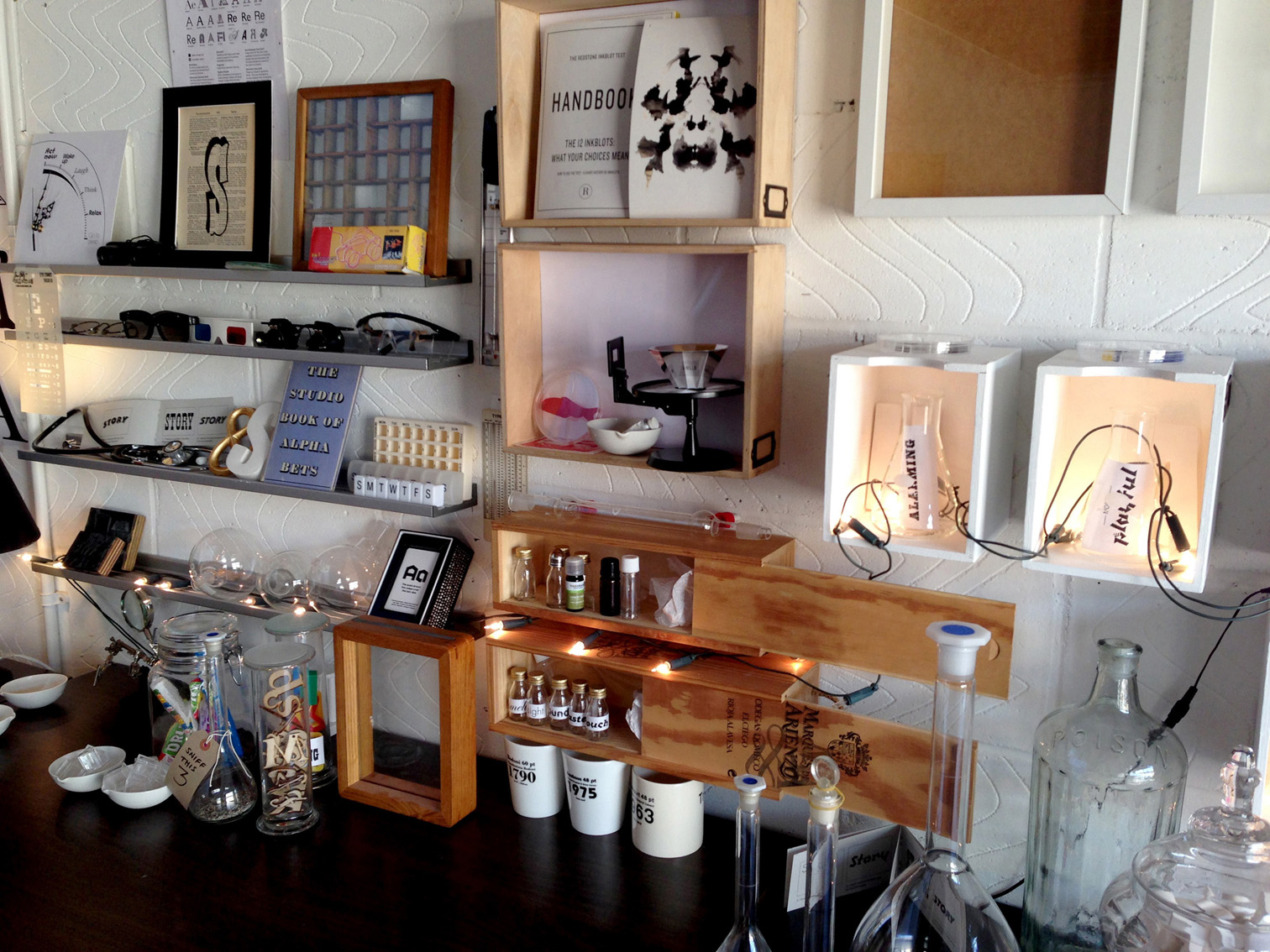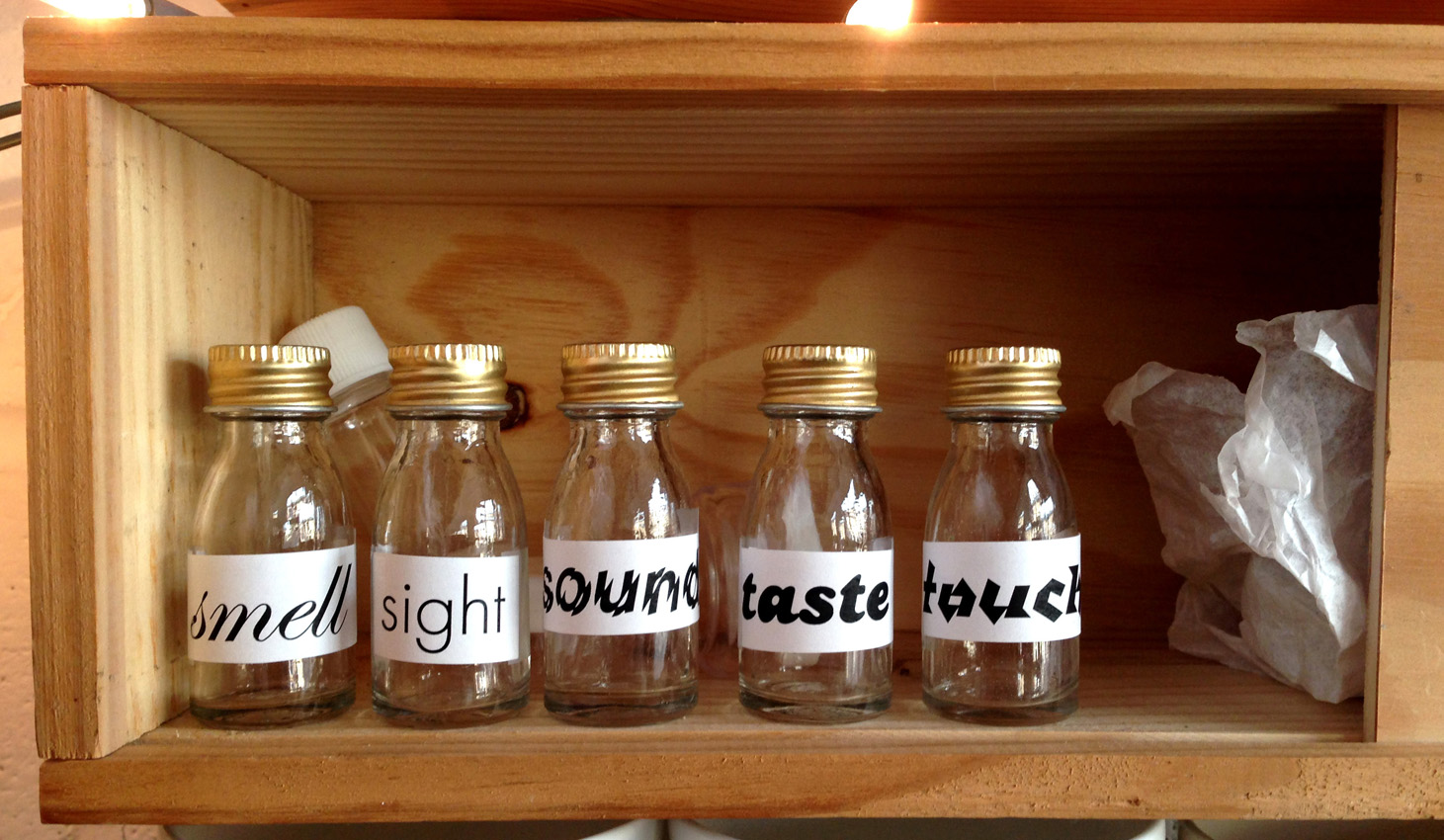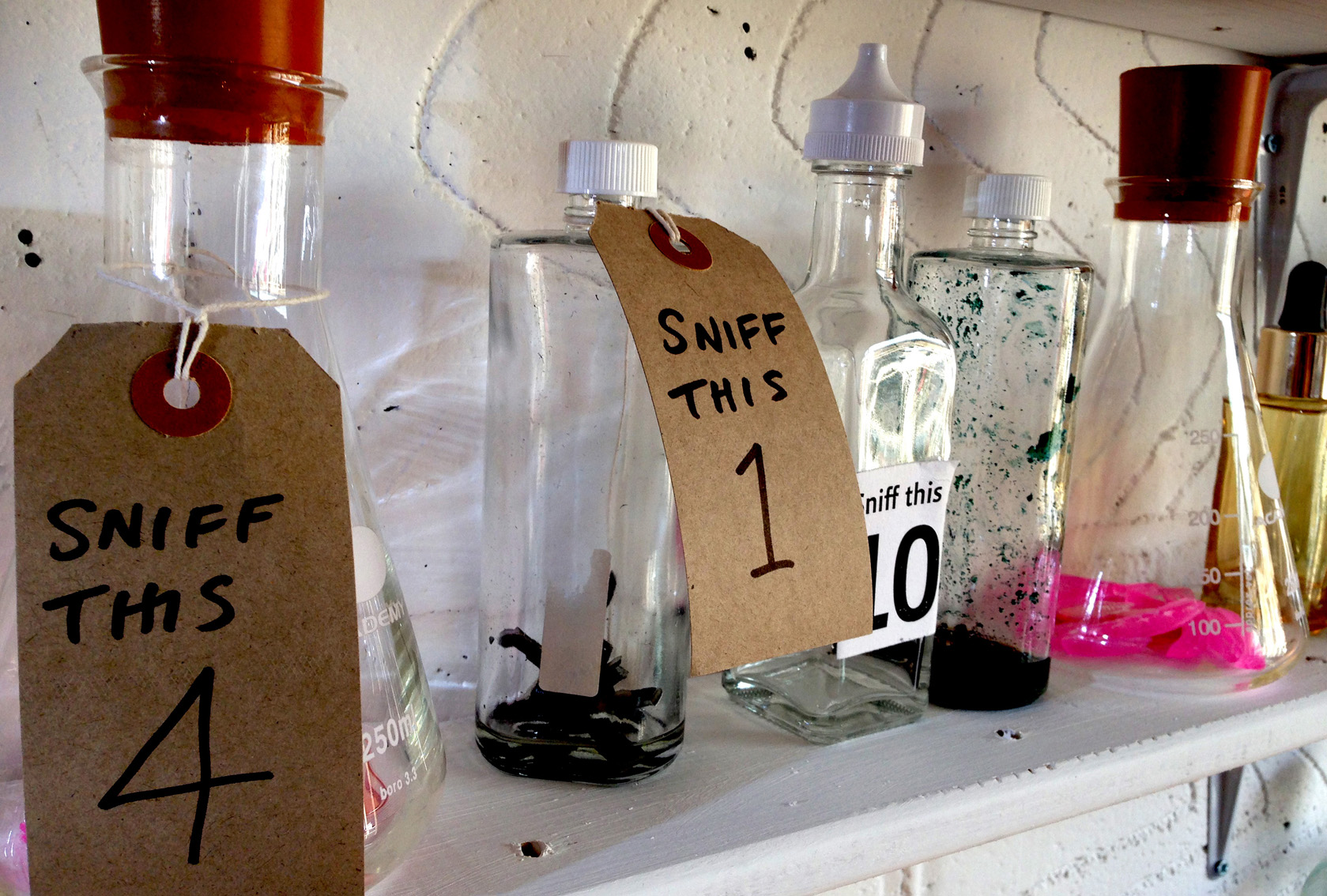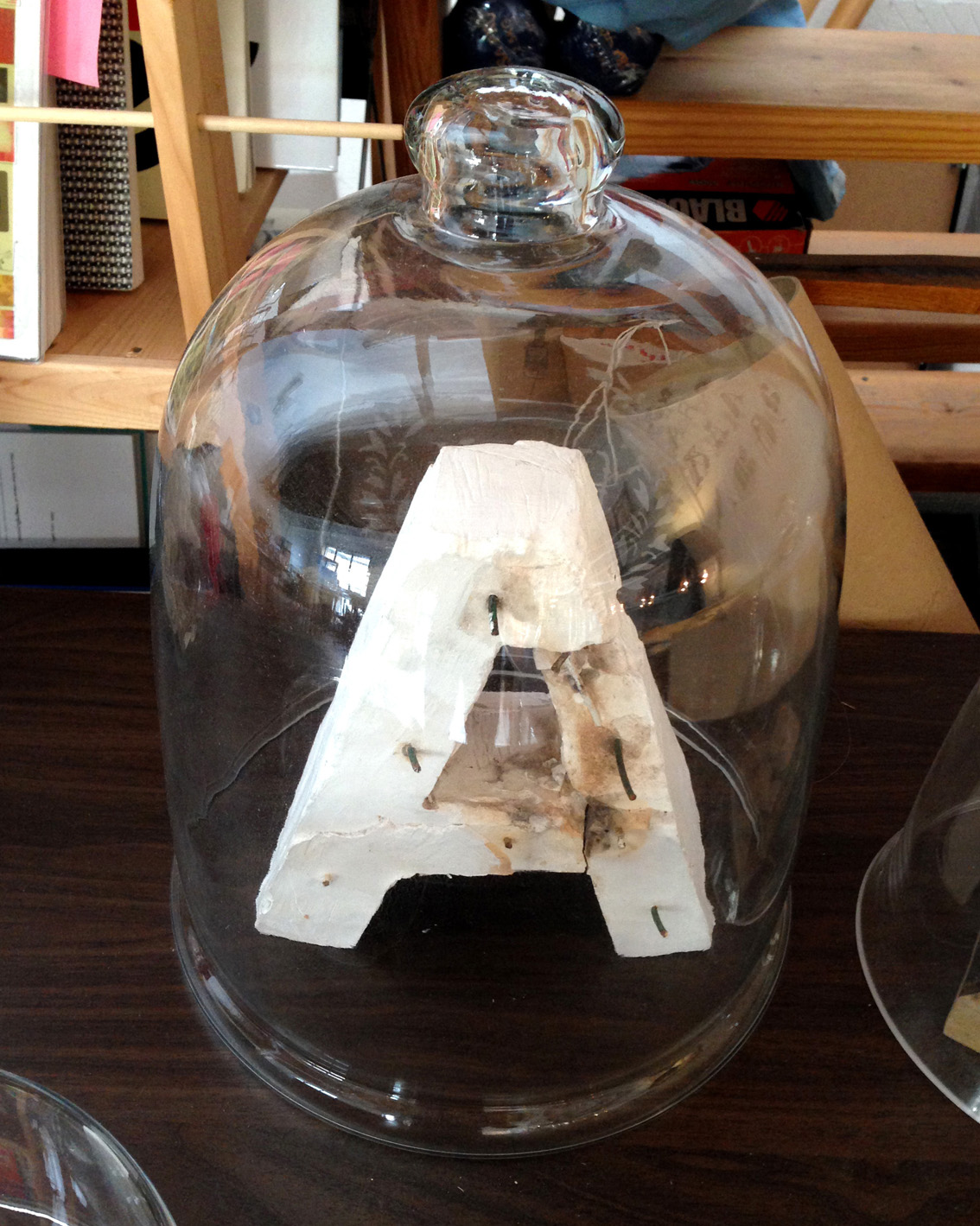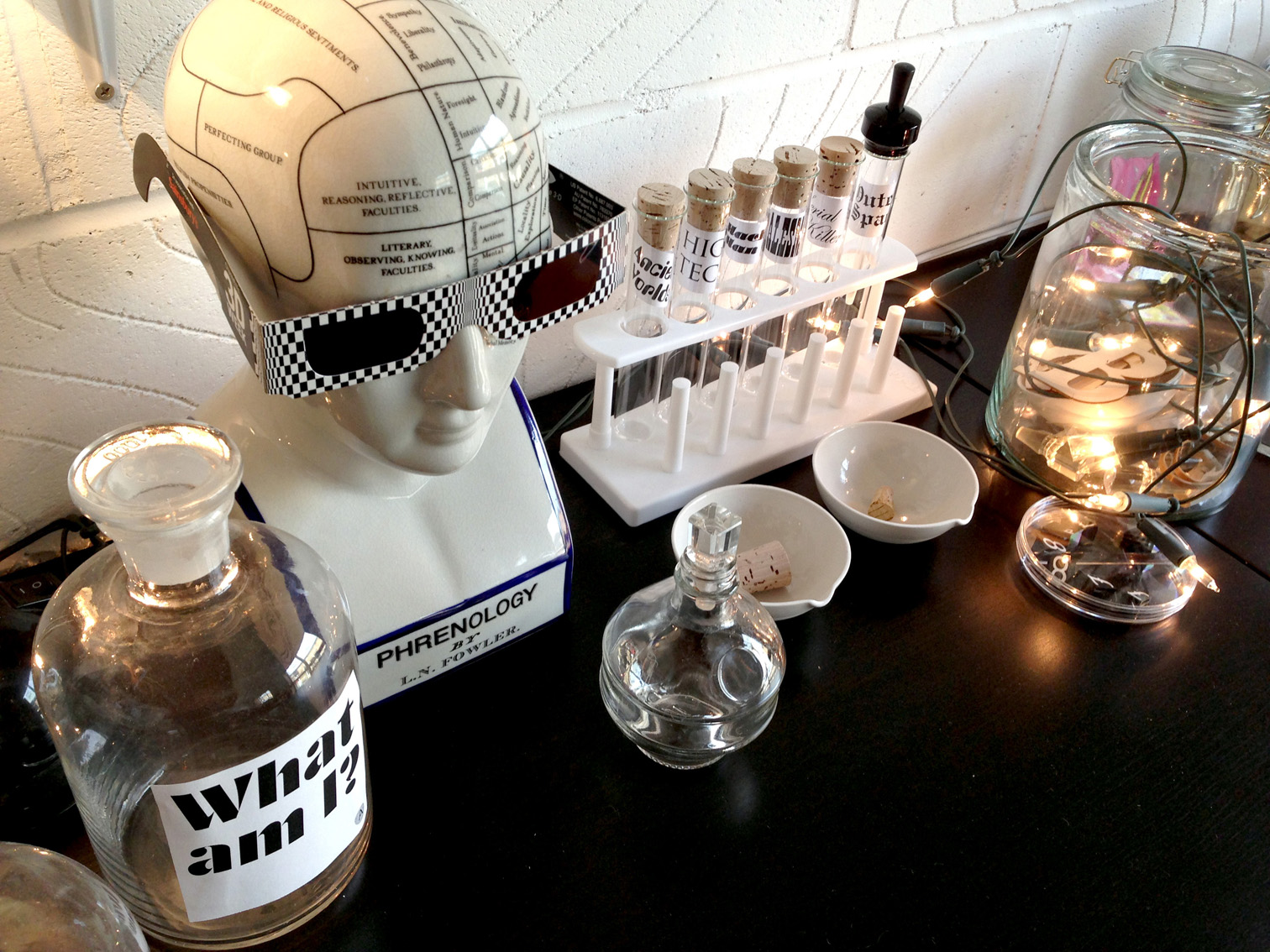
Talking fonts live on BBC Radio 4
Yesterday I was invited to be one of the guests on BBC Radio 4’s Saturday Live to talk about how we respond to typefaces. I took along some of the games that had gone down so well at the Pop-up Type Tasting at the V&A for the London Design Festival the previous weekend. Above is actor Sophie Thompson playing the ‘Feel Me’ game matching what she can feel to one of the fonts shown, if you came along to the event last weekend you know exactly which font she’s feeling from the expression on her face!
It was such an interesting programme to be on. Sophie is delightful and a pleasure to listen to, and I was excited to meet Peter Bleksley who is one of the hunters on ‘Hunted’ with the most amazing voice. It seems that we would all love the challenge of being on the next series and going on the run in an attempt to evade capture for 28 days. Third guest Trevor Lyttleton founded a charity which works with the elderly and we had a great chat afterwards about the power of typefaces on packaging to trigger nostalgia and bring back memories.
A glimpse into the Type Tasting studio
The Type Tasting studio is full of jars of smells, sweets, mystery boxes to identify from the typefaces on the packaging, typographic memorabilia and puzzles. “Walking into the Type Tasting studio was like walking into a mad scientist’s lab” Robert Boick.